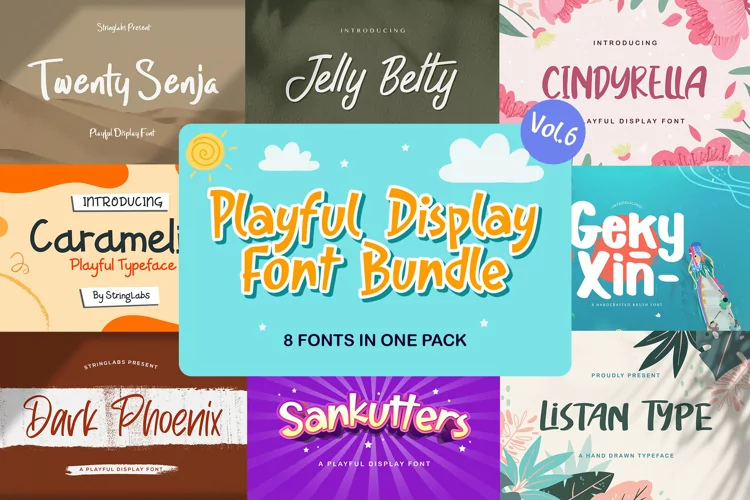
Playful Display Font Bundle Vol 6
Playful Display Font Bundle Vol 6 embodies fun, quirkiness and authenticity. This enchanting display font will turn any creative idea into a true standout.
This Display Font Bundle is a playful, and quirky font that contains 8 high quality fonts. Its friendly feel makes this font incredibly versatile, fitting a wide range of contexts.
Get creative with its childlike playfulness, and use it to brighten up any kids and school project!
FONTS INCLUDED :
1. Twenty Senja
2. Caramelia
3. Jelly Belty
4. Dark Phoenix
5. Geky Xin
6. Cindyrella
7. Listan Type
8. Sankutters